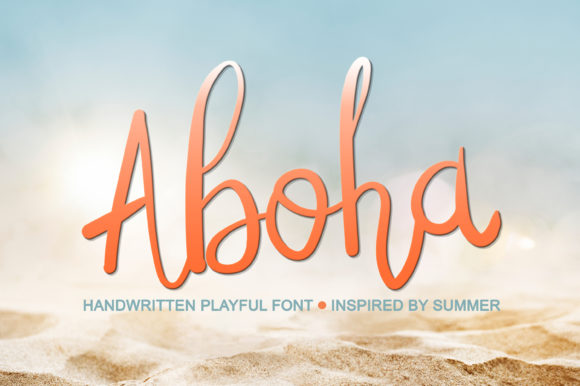
Aboha Font: Elevate Your Designs with Elegance and Sophistication
In the world of typography, few fonts manage to strike a balance between classic elegance and modern flair. Aboha Font is one such exceptional typeface that embodies the perfect blend of sophistication and freshness. Dubbed as a truly outstanding handwritten font, Aboha simplifies elegance into a single, remarkable design that’s sure to elevate your creative projects.
The Essence of Aboha Font
Aboha Font boasts a distinctive, classy calligraphic influence that sets it apart from other handwritten fonts. Its elegant strokes and fluid connections evoke a sense of refinement and luxury, making it an ideal choice for designers seeking to add a touch of sophistication to their work. Whether you’re crafting a logo, creating a brand identity, or designing a wedding invitation, Aboha Font provides the perfect blend of style and poise.
What Makes Aboha Font Stand Out?
- Contemporary yet Classic: Aboha Font skillfully merges traditional calligraphic elements with modern sensibilities, resulting in a design that’s both fresh and timeless.
- Elegant and Refined: The font’s flowing strokes and precise letterforms exude elegance and sophistication, making it perfect for high-end branding, editorial design, and luxury packaging.
- Versatile: Aboha Font adapts seamlessly to various design applications, from digital platforms to print materials, ensuring consistency and impact across all mediums.
- Handwritten Charm: The font’s handwritten nature adds a personal touch to your designs, infusing them with warmth and character.
Design Applications for Aboha Font
Aboha Font’s versatility makes it suitable for a wide range of design projects, including:
- Branding and Identity: Create stunning logos, business cards, and letterheads that reflect your brand’s elegance and sophistication.
- Wedding and Event Design: Add a touch of luxury to your wedding invitations, programs, and other event materials with Aboha Font’s refined charm.
- Packaging and Product Design: Elevate your product packaging with Aboha Font’s sophisticated and modern aesthetic.
- Digital Design: Use Aboha Font to create engaging social media graphics, website headers, and email newsletters that showcase your brand’s personality.
Tips for Using Aboha Font Effectively
To maximize the impact of Aboha Font in your designs:
- Pair with Neutral Backgrounds: Allow Aboha Font to take center stage by pairing it with clean, neutral backgrounds that won’t compete for attention.
- Experiment with Colors: Aboha Font looks stunning in a range of colors, from rich jewel tones to soft pastels. Experiment with different hues to find the perfect match for your design.
- Pay Attention to Kerning and Spacing: Ensure that Aboha Font’s elegant strokes and connections are showcased to their fullest potential by adjusting kerning and spacing to create a harmonious flow.
Aboha Font is a truly exceptional typeface that distills elegance and sophistication into a single, remarkable design. Its unique blend of classic calligraphic influences and modern freshness makes it an indispensable tool for designers and crafters seeking to elevate their creative projects. Whether you’re crafting a luxury brand identity or designing a beautiful wedding invitation, Aboha Font is sure to leave a lasting impression.